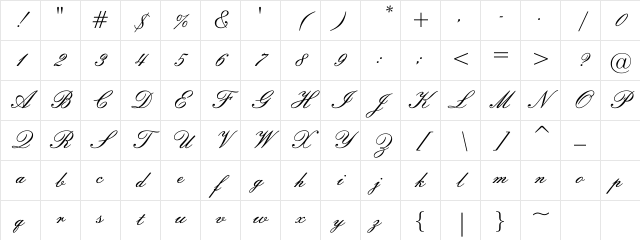
Embassy Regular
Design Context for Embassy
Embassy is a composed and adaptable typeface that performs quietly and consistently across a wide range of design contexts.
Pro Tip: Use Embassy in both headline and body roles to test its range before committing to a single application.